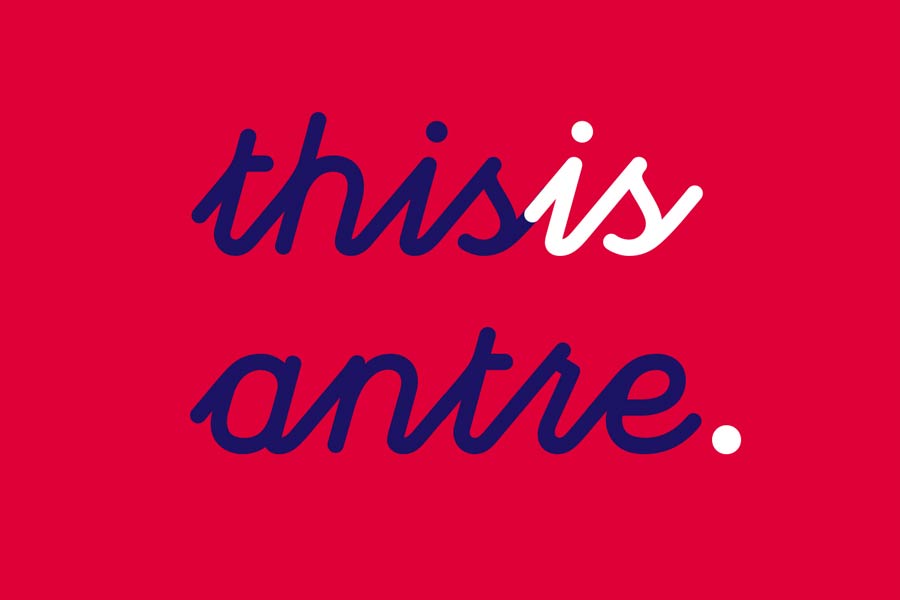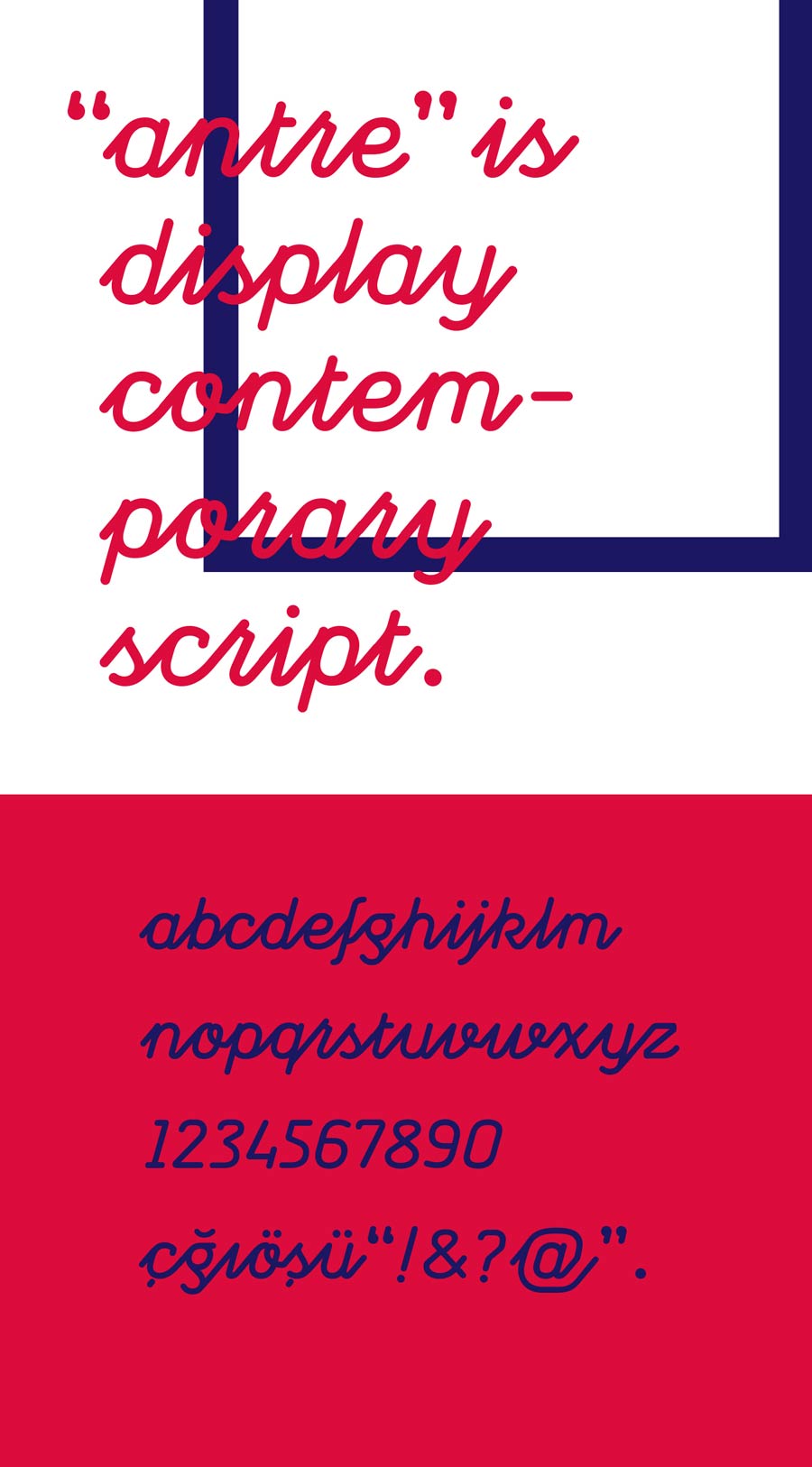
Antre is a stylish rhythmic script font that you can download for free. The characters are connected when typing in a sentence, and it reminded me of Kino 40, just thinner. This font looks great on typographic posters, pull quotes from fashion magazines and even for logotypes.
- Designer: Taner Ardali
- Category: Display, Script